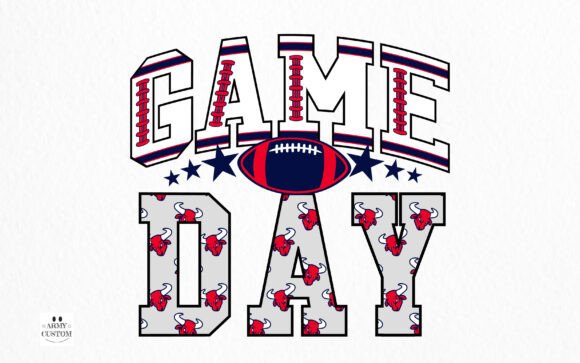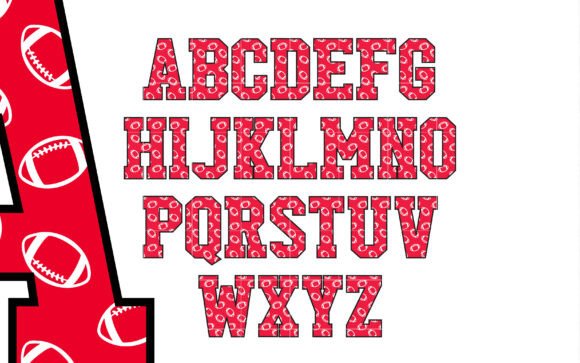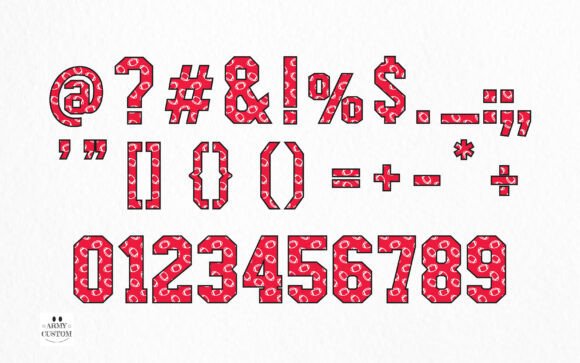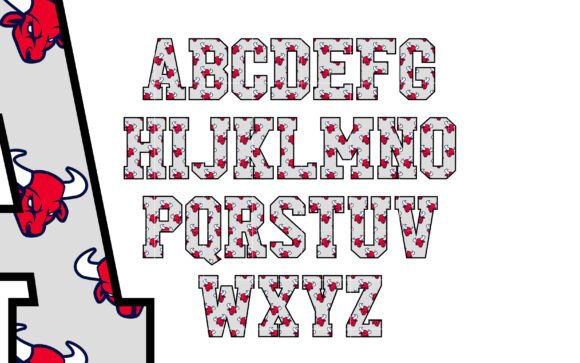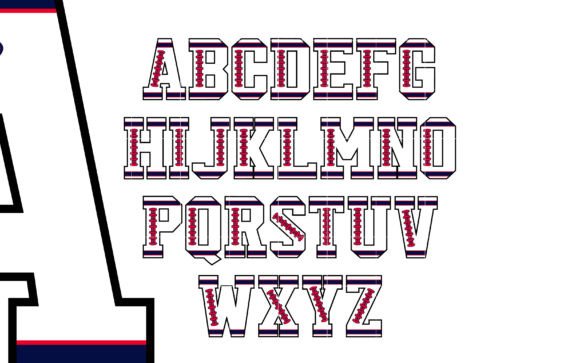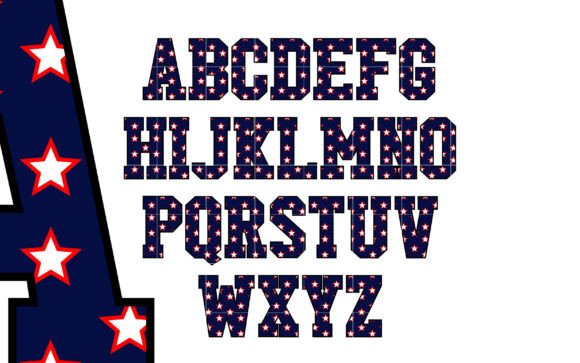
Unleash the Power of American Football Bulls Font: Elevate Your Designs with Gridiron Flair
Immerse yourself in the exhilarating world of gridiron with the American Football Bull Bundle, an innovative font that embodies the essence of American football in every letter. This athletic font is designed to capture the dynamism and competitive spirit of the sport, making it a quintessential choice for designers and crafters seeking to communicate strength, agility, and unyielding spirit.
A Font that Seamlessly Combines Design and Sport
The American Football Bull Bundle font is conceived with a unique blend of creativity and passion, emerging from a place of deep inspiration – an homage to the beloved American pastime. This font is not just a typography; it’s an expression of the energy, excitement, and drama that comes with the game. Whether you’re designing a logo, a t-shirt, or a social media post, this font is sure to add a touch of gridiron flair to your creations.
What Makes American Football Bulls Font Stand Out?
This font stands out from the rest due to its unique blend of athleticism and style. Here are some key benefits:
- Expressive Typography: The American Football Bull Bundle font offers a fresh and exciting way to express yourself through typography. With its bold and dynamic design, you can add a touch of personality to your designs.
- Sport Meets Style: This font seamlessly combines the world of sports with style, making it perfect for designers and crafters who want to create unique and eye-catching designs.
- Deep Inspiration: The font’s design is deeply inspired by the world of American football, making it an excellent choice for those who love the sport.
Use Cases for American Football Bulls Font
The American Football Bull Bundle font is versatile and can be used in a variety of design projects, including:
- Team Logos: Create a professional-looking logo for your favorite football team or a fictional team.
- T-Shirts and Apparel: Design eye-catching t-shirts, hoodies, and other apparel for football fans.
- Social Media Posts: Add a touch of gridiron flair to your social media posts, making them stand out from the crowd.
- Signs and Banners: Create bold and dynamic signs and banners for football games, tailgating parties, or sports bars.
Tips for Using American Football Bulls Font
To get the most out of the American Football Bull Bundle font, here are some tips:
- Experiment with Colors: The font’s color capabilities offer endless possibilities for creative expression. Experiment with different colors to find the perfect combination for your design.
- Mix and Match: Combine the American Football Bull Bundle font with other fonts to create a unique and eye-catching design.
- Pay Attention to Details: The font’s design is intricate, so make sure to pay attention to details and adjust the font size and style accordingly.
The American Football Bull Bundle font is a game-changer for designers and crafters who want to add a touch of gridiron flair to their creations. With its unique blend of athleticism and style, this font is sure to elevate your designs and make them stand out from the crowd. So, immerse yourself in the exhilarating world of gridiron and unleash the power of American Football Bulls Font today!